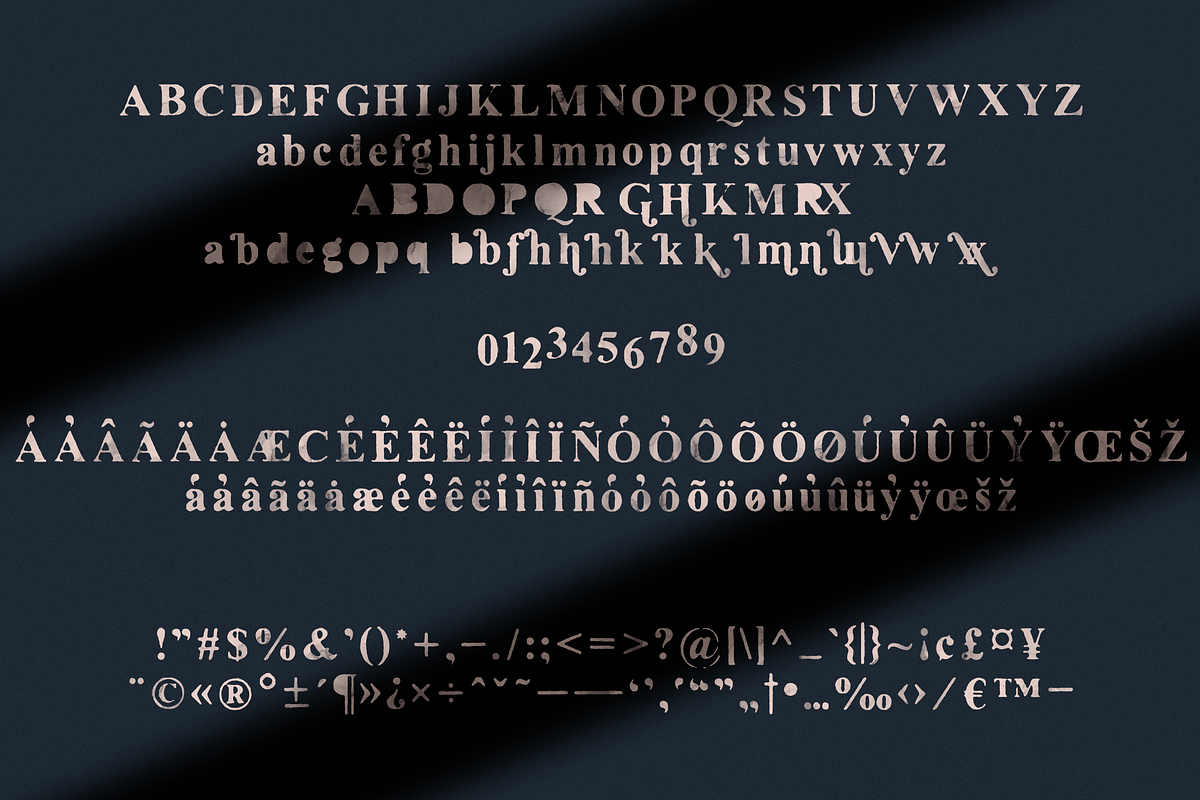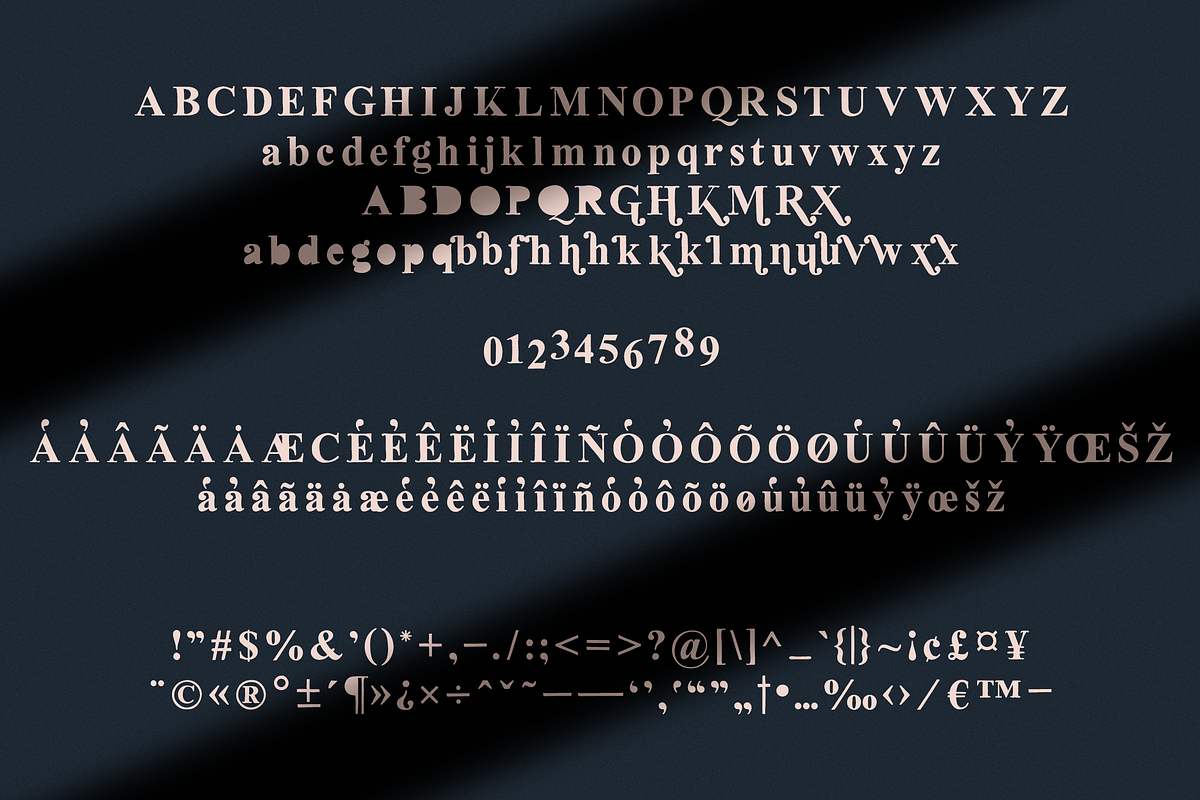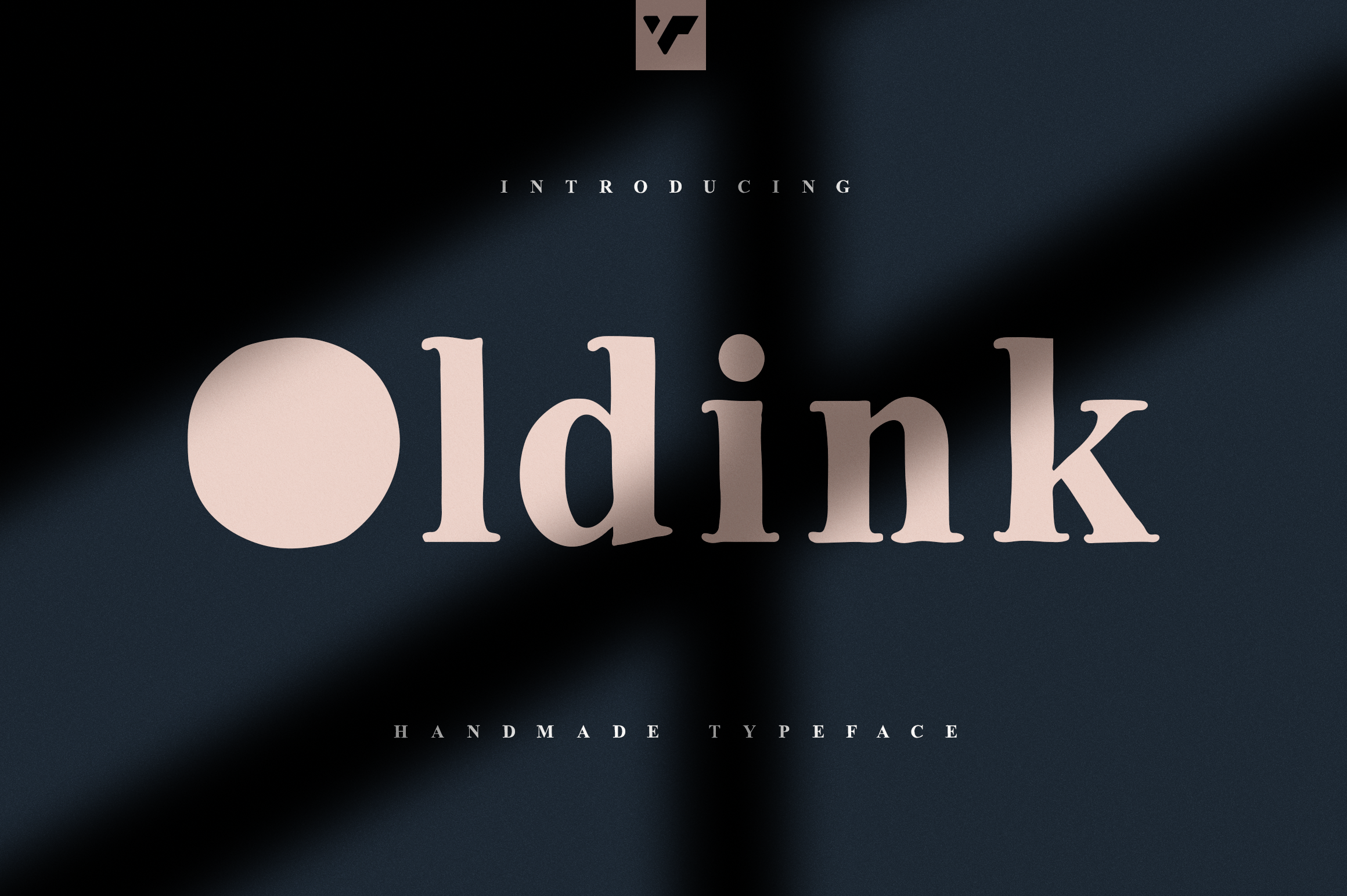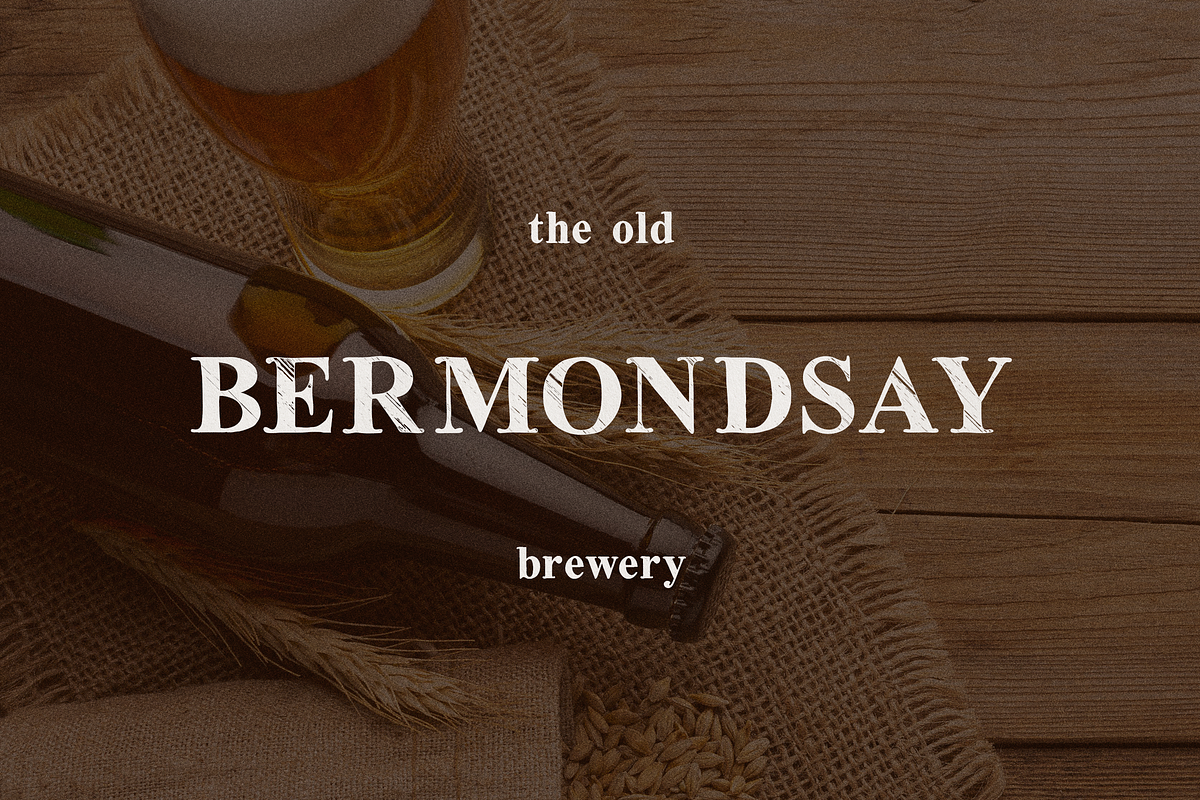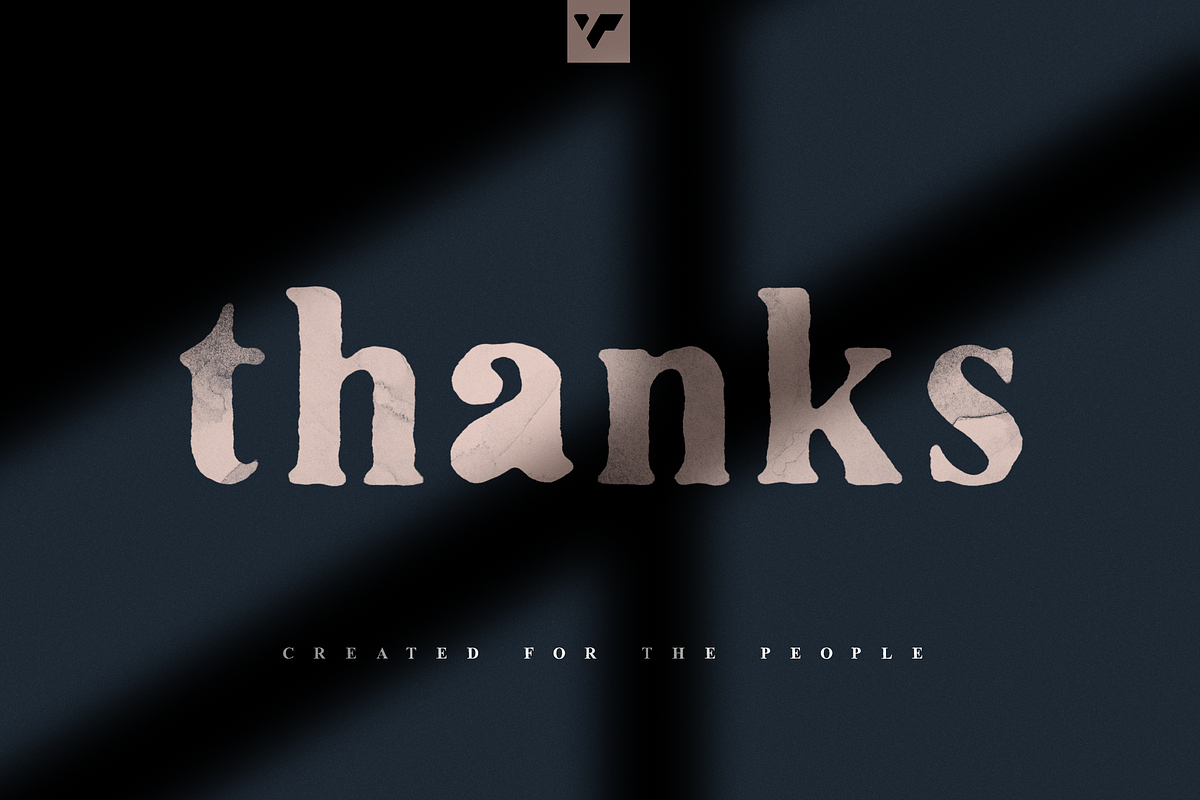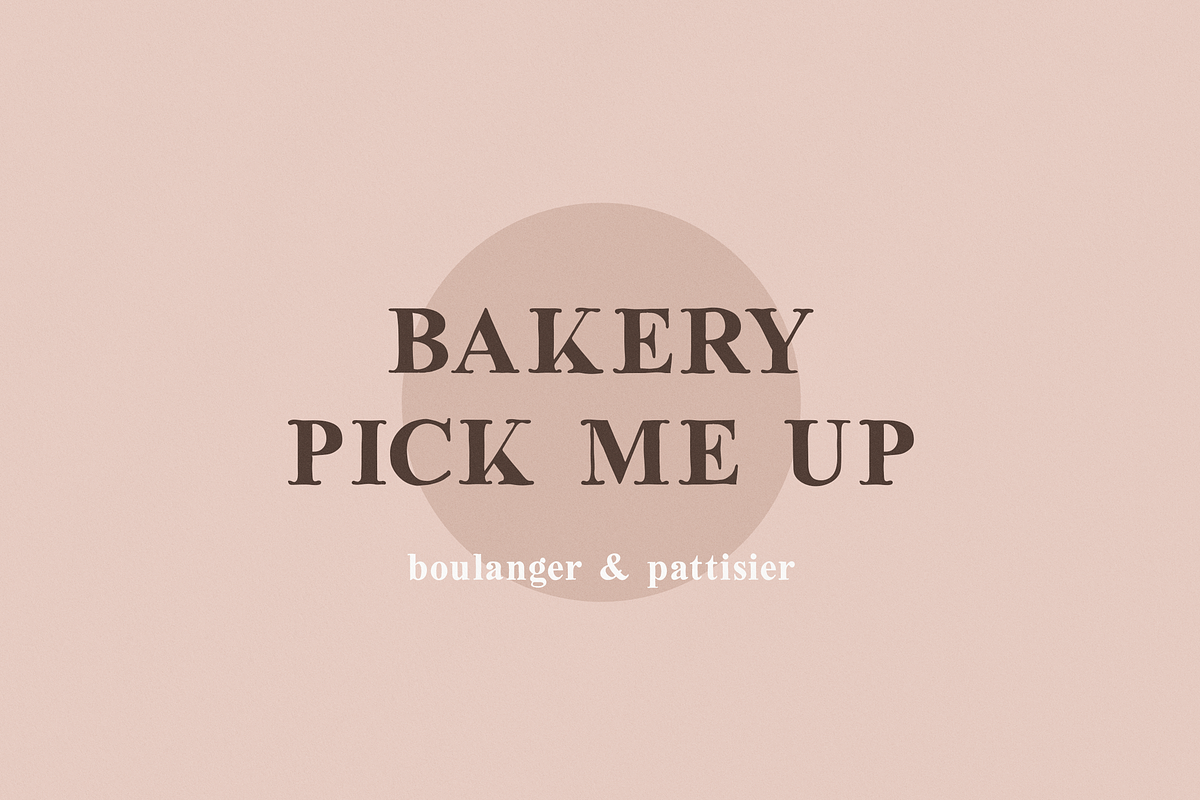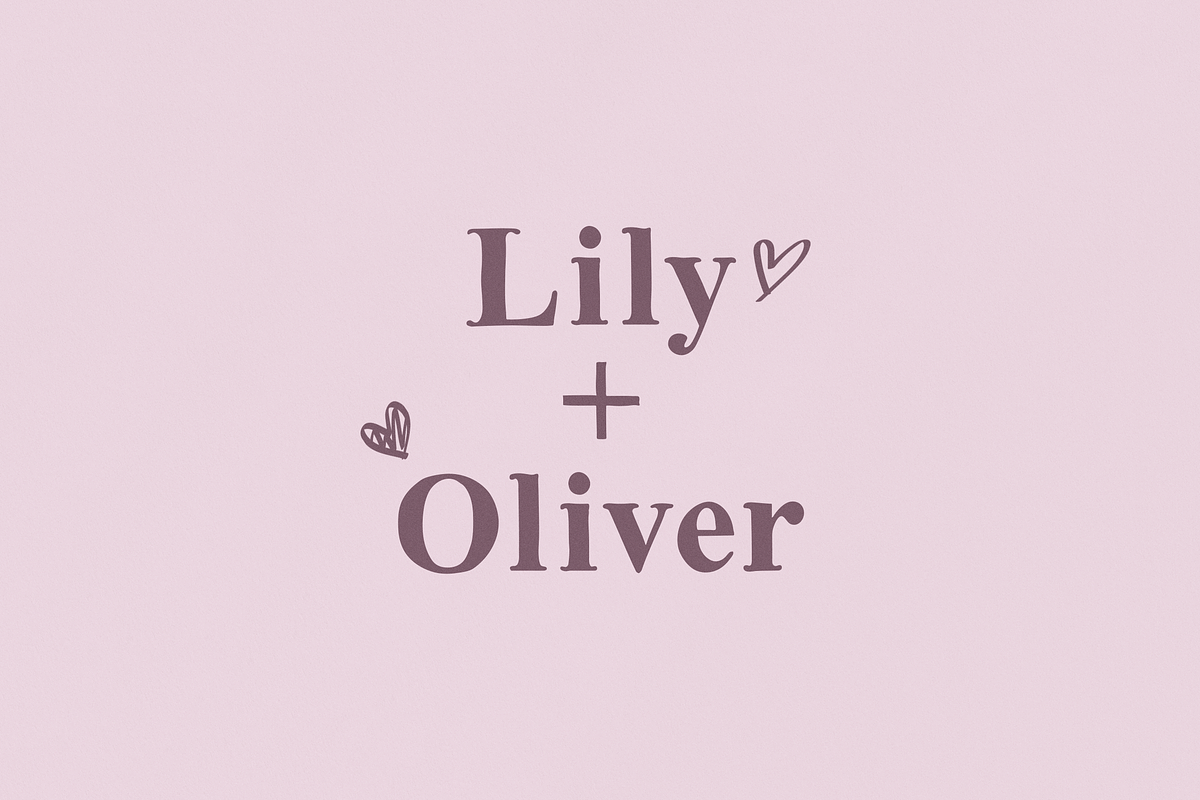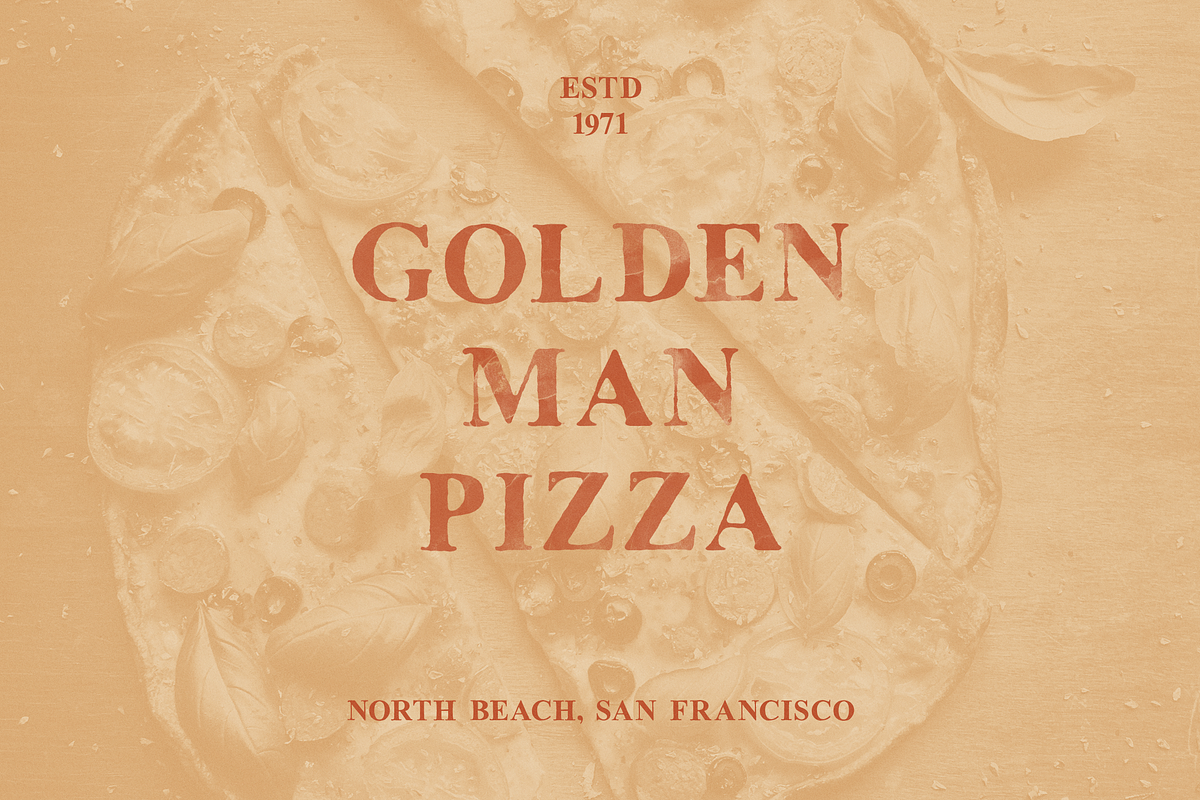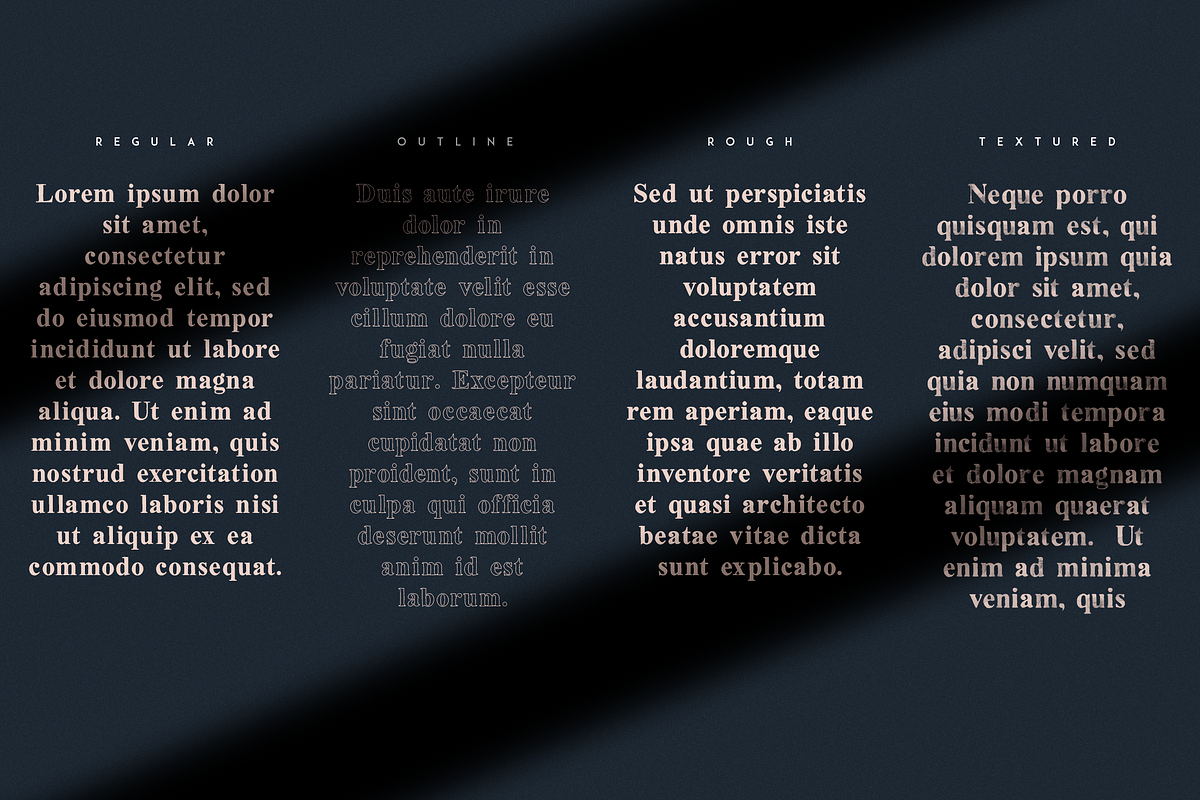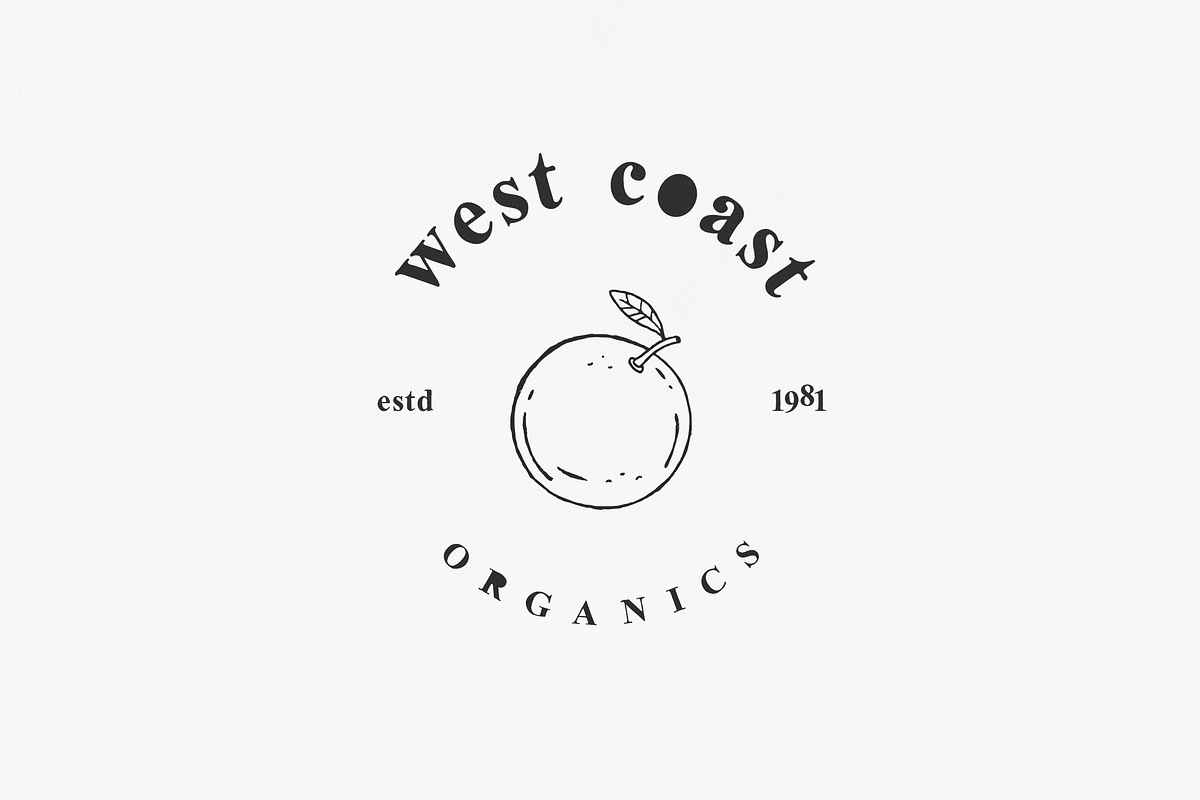
Oldink - handwritten serif typeface
Introducing Oldink handmade typeface - 3 styles + 1 SVG textured font
Oldink is handwritten and rough typeface loaded with 4 fonts, alternate glyphs and multilingual support to enchant your next project. Very versatile fonts that works great in large and small sizes.
Oldink is perfect for branding projects, home-ware designs, product packaging, magazine headers - or simply as a stylish text overlay to any background image.
- Regular Oldink font
- Outline Oldink font
- Rough Oldink font
- SVG textured Oldink font
- Uppercase, lowercase, numeral, punctuation & Symbol
- Alternate glyphs